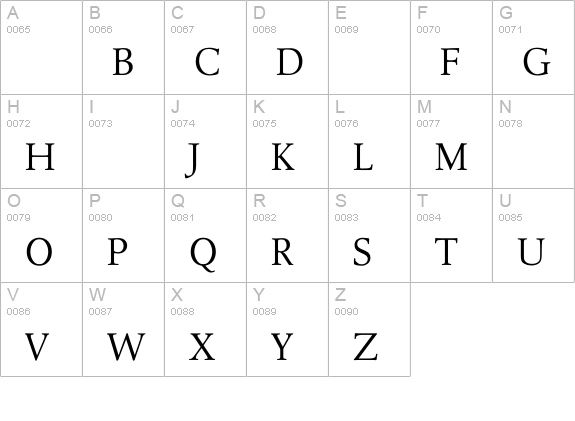
LeightonLight Font Details
Introducing LeightonLight, a stunningly elegant and versatile font that is sure to capture your imagination. With its graceful curves and delicate strokes, LeightonLight adds a touch of sophistication to any project. Whether you're designing a logo, crafting a wedding invitation, or creating eye-catching graphics for your website, this font is guaranteed to elevate your work to new heights. But what truly sets LeightonLight apart is its unique combination of beauty and accessibility. This font not only captivates with its exquisite design, but it also offers an amazing opportunity for creative expression. And the best part? LeightonLight is completely free. Yes, you read that right. This exceptional font can be freely downloaded at FontsMarket.com, allowing you to bring your vision to life without breaking the bank. LeightonLight's versatility knows no bounds. Its clean and legible letterforms make it perfect for both headlines and body text, ensuring that your message is conveyed with clarity and style. Whether you're aiming for a classic and timeless look or a modern and edgy vibe, LeightonLight effortlessly adapts to suit your needs. With LeightonLight, you can indulge in unlimited creative possibilities. Its extensive character set includes a wide range of accents, ligatures, and alternates, allowing you to personalize your designs with ease. Whether you're adding a swash to a capital letter or experimenting with different letter combinations, LeightonLight empowers you to create truly unique and captivating visuals. Download LeightonLight today and experience the freedom to create. With its impeccable design, flexible usage, and accessibility, this font is truly a game-changer. Don't miss out on the opportunity to elevate your design projects to the next level. Visit FontsMarket.com now and discover the beauty and brilliance of LeightonLight font, freely available at your fingertips.